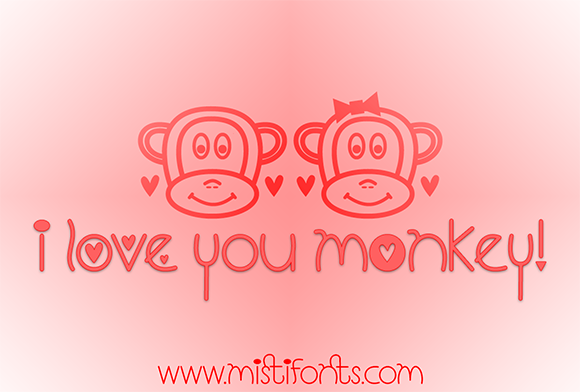
Welcome to the enchanting world of I Love You Monkey Font, a display font family that ignites a vibrant array of emotions. This extraordinary font set, brought to life by the creative visionary, Misti, embodies the essence of Valentine's Day with its captivating style and playful spirit.
With I Love You Monkey Font, you have the power to sprinkle a touch of sweetness and joy into your Valentine's Day endeavors. Whether you're crafting heartfelt cards, designing eye-catching posters, or personalizing gifts for your loved ones, this font will transform your creations into expressions of pure delight.
Fall head over heels for the adorable and youthful charm of I Love You Monkey Font, designed to capture the innocent exuberance of youth. Let its playful strokes and whimsical details transport you to a realm of happiness and lightheartedness.
Indulge in the versatility of I Love You Monkey Font, extending its magical touch across a diverse range of designs. Its boundless potential shines in invitations, social media posts, website designs, and branding materials, adding a sprinkle of enchantment to every project.
Dive deep into the ocean of love with I Love You Monkey Font, a font family that speaks to the heart. Its enchanting characters, reminiscent of sweet nothings whispered between lovers, will infuse your designs with a palpable sense of warmth and affection.
Let I Love You Monkey Font be your guiding light as you embark on a journey of creativity, leaving a trail of joy and love in your wake. Discover the boundless possibilities that await you with this captivating font set, and let your Valentine's Day projects bloom with heartfelt charm and undeniable appeal.